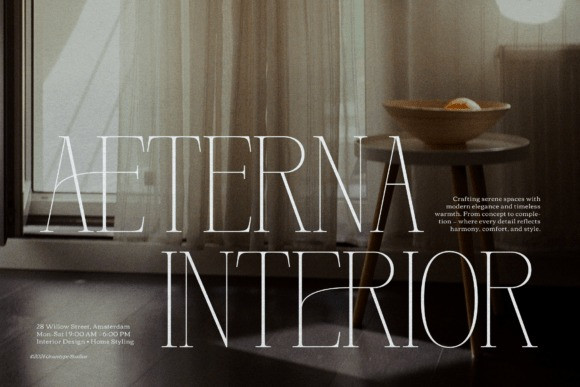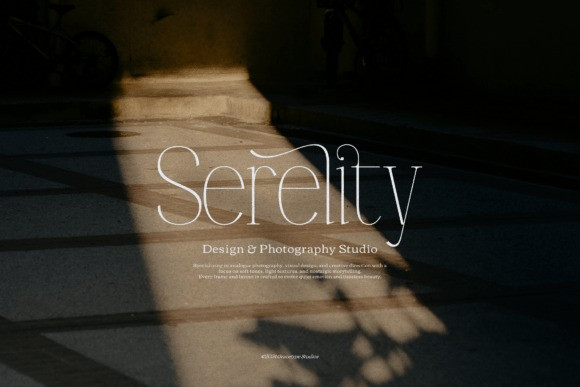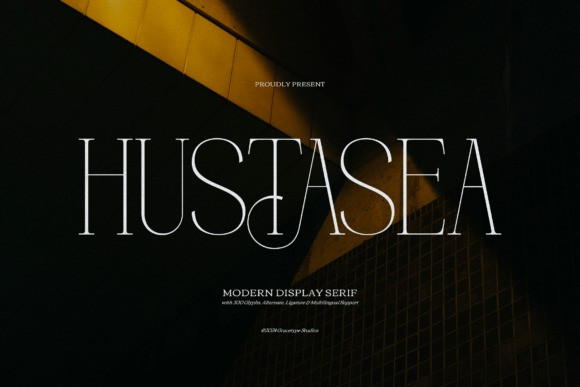
Hustasea Font is a breathtakingly elegant and luxury-oriented modern display serif typeface. It is characterized by ultra-high contrast, delicate thin strokes, and tall, graceful letterforms. The inclusion of over 300 alternate glyphs, ligatures, and multilingual support allows for truly customized and sophisticated typographical statements.
This font is the perfect choice for high-end fashion branding, luxury product packaging, editorial design, magazine titles, and wedding stationery that requires an undeniable air of class and exclusivity.